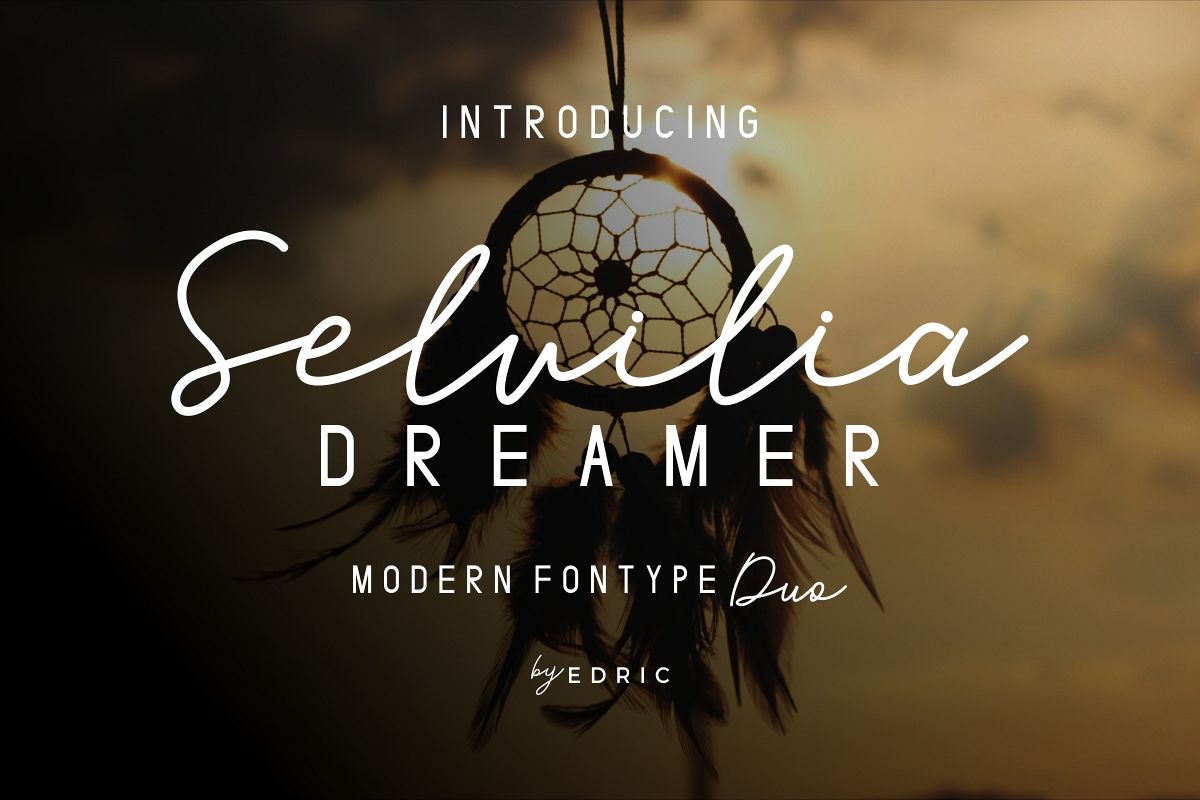
Selvillia Dreamer
Whatsup Everyone! Introducing our newest font : Selvillia Dreamer ! This is a DUO fonts : Script and Sans Display This is a hand made fonts, It comes with two styles: Script and Sans Display. It will be great for many cases: poster, logo, flyer, branding, signage etcThis font will Work on PC & Mac with Simple installations. Accessible in the Adobe Illustrator, Adobe Photoshop, Adobe InDesign, even work on Microsoft Word.Purchase now! =)